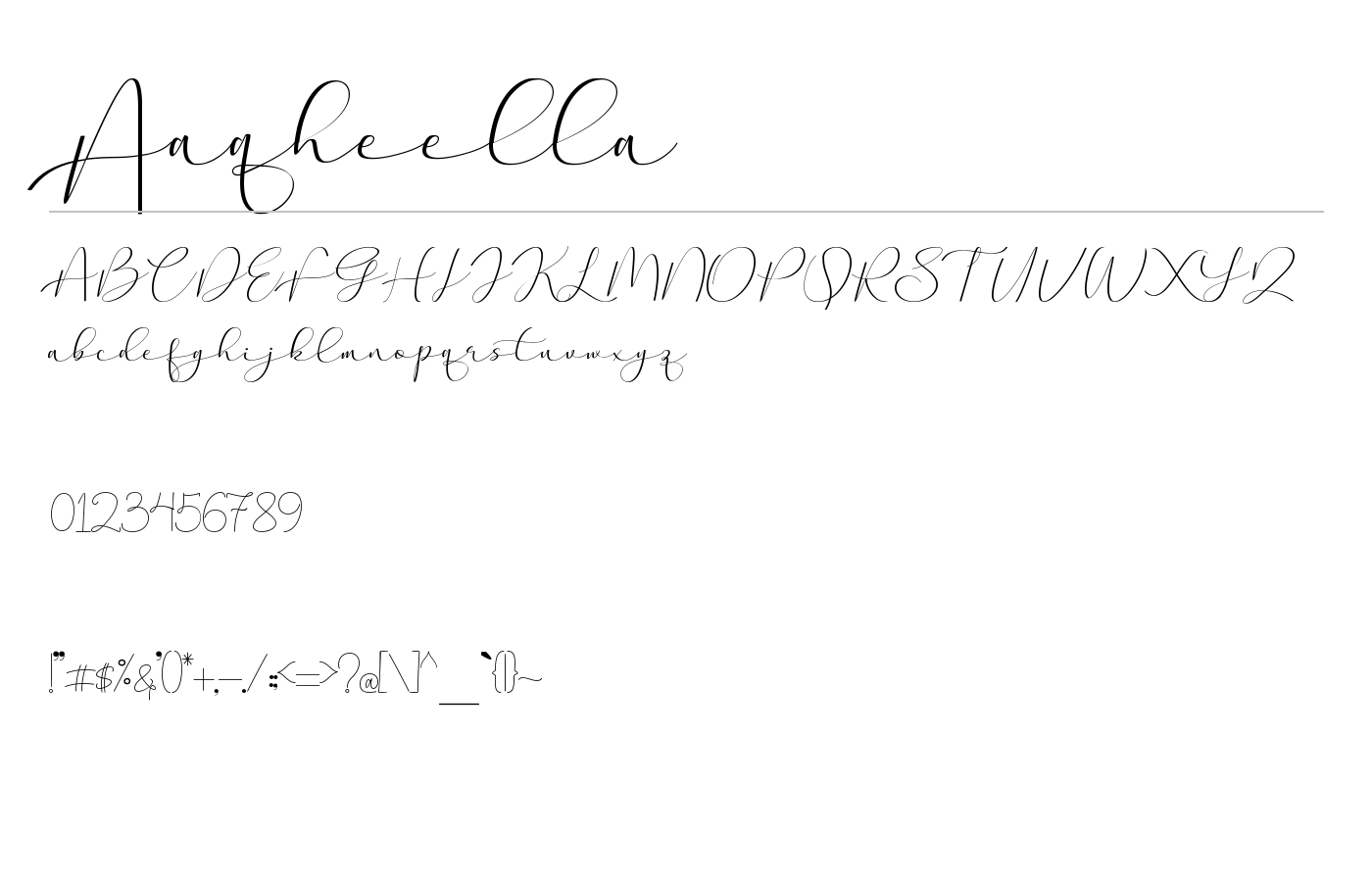
Aaqheella is a delicate, handwritten script font featuring thin, flowing strokes with elegant loops and swashes that give it a graceful, feminine feel. Its light weight and airy spacing make it ideal for invitations, branding, and sophisticated editorial designs where a stylish, personal touch is desired. This font beautifully balances a refined, artistic character with readability, making it perfect for projects that aim to convey elegance and charm.
Aaqheella Font
About Aaqheella Font